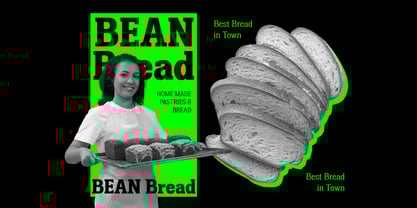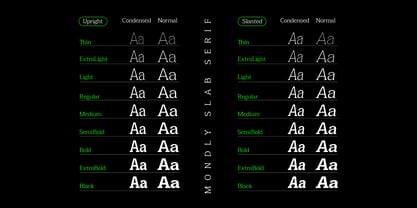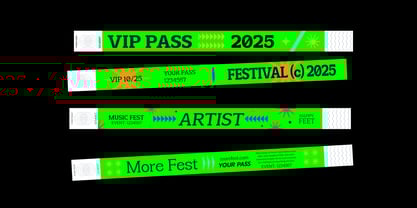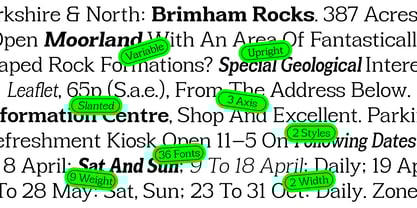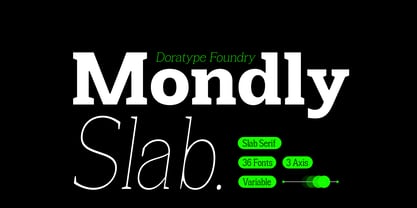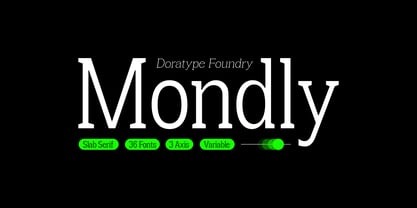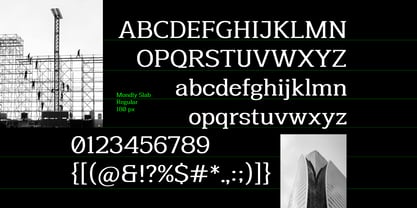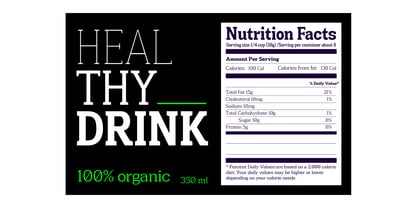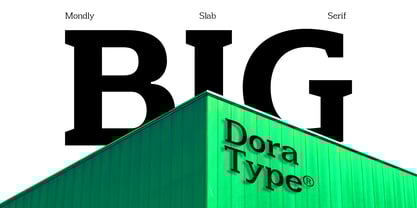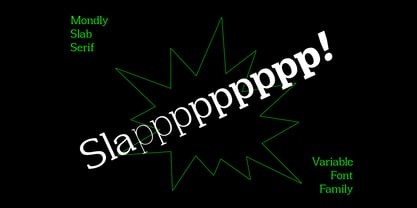
Mondly
by Dora Typefoundry
The Mondly Font Family was designed by Zahratul Laila and published by Dora Typefoundry. Mondly contains 37 styles and family package options.
The Mondly Slab font is a contemporary slab serif typeface that strikes a balance between strength and elegance. With its bold, square serifs, it conveys a strong and authoritative character, yet maintains elegant proportions that make it flexible for a variety of design needs. Featuring 36 styles, 3 variable axes, and variable font support, Mondly Slab is ideal for titles, visual identities, branding, and modern publications that require strong, yet aesthetically pleasing, professional typography.